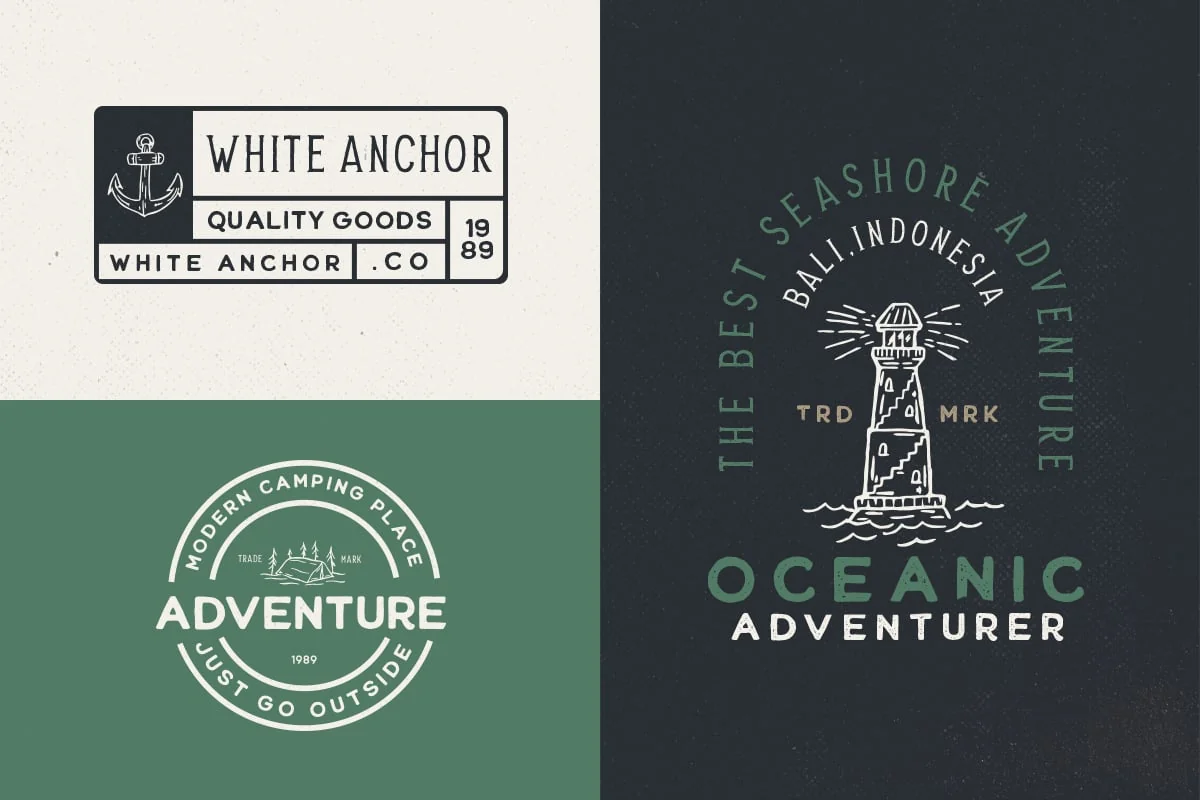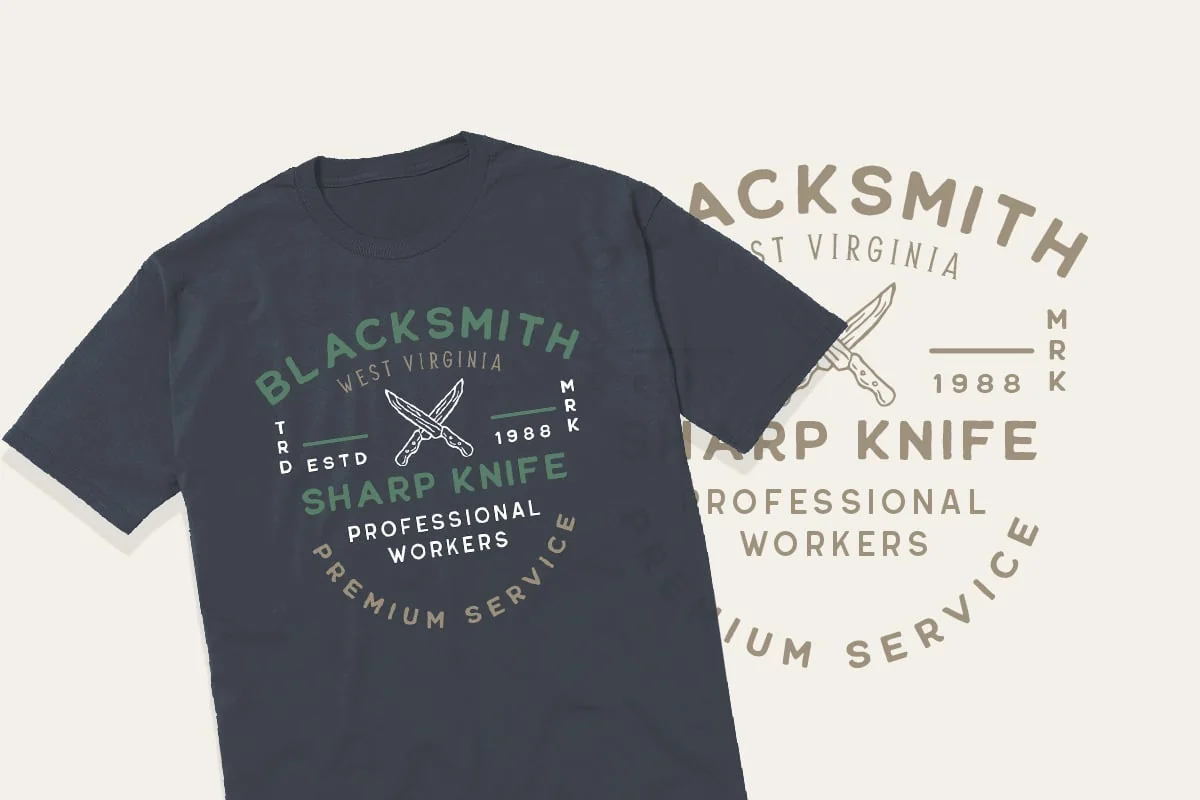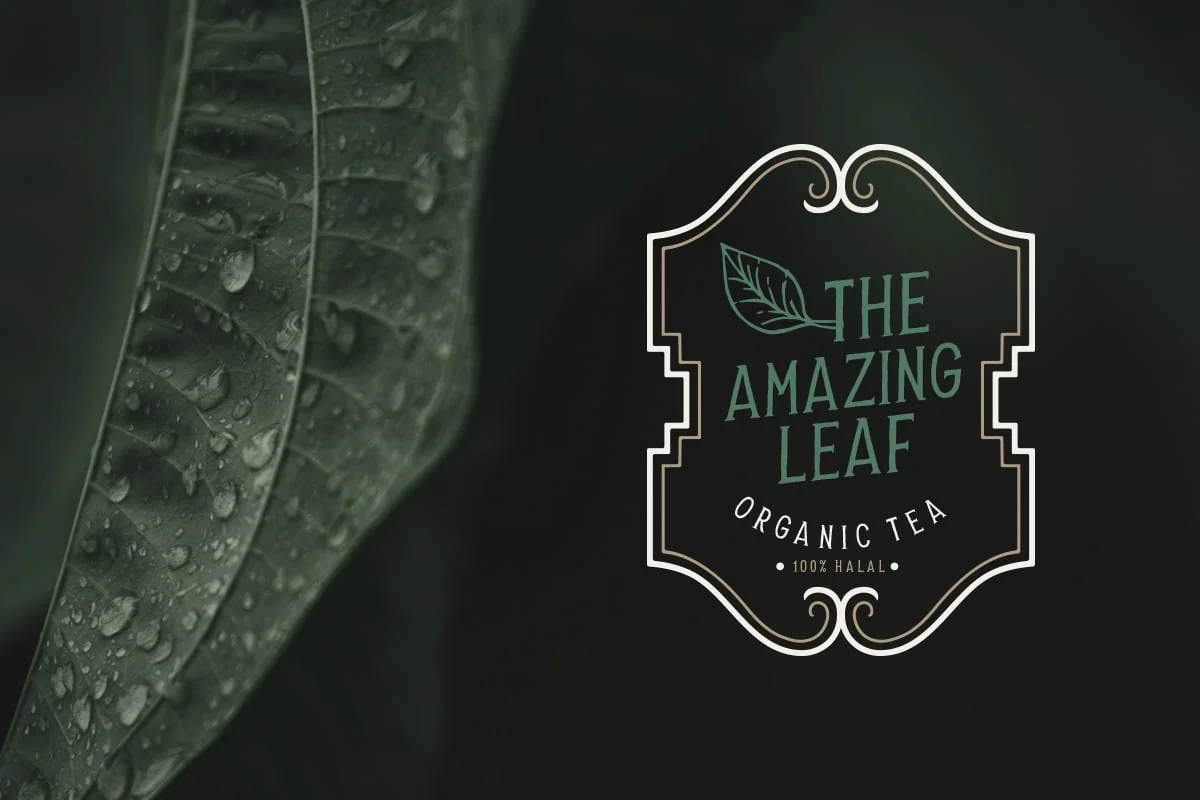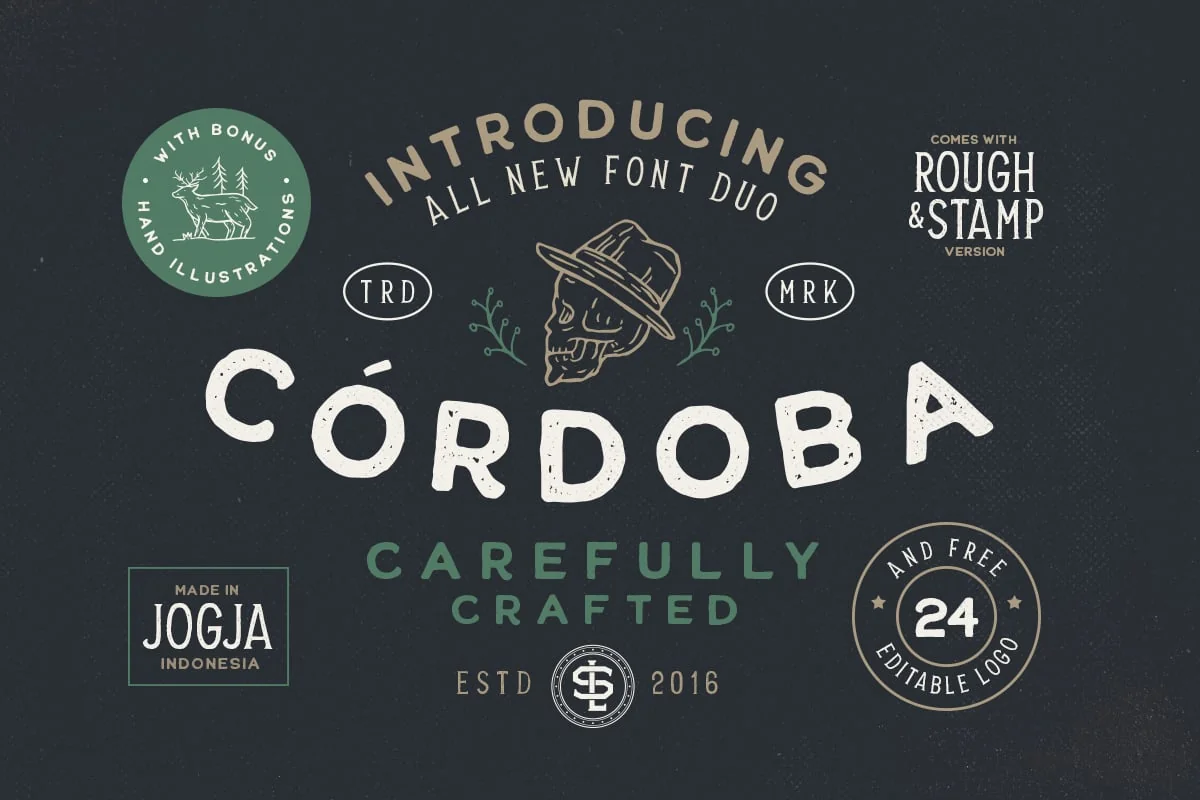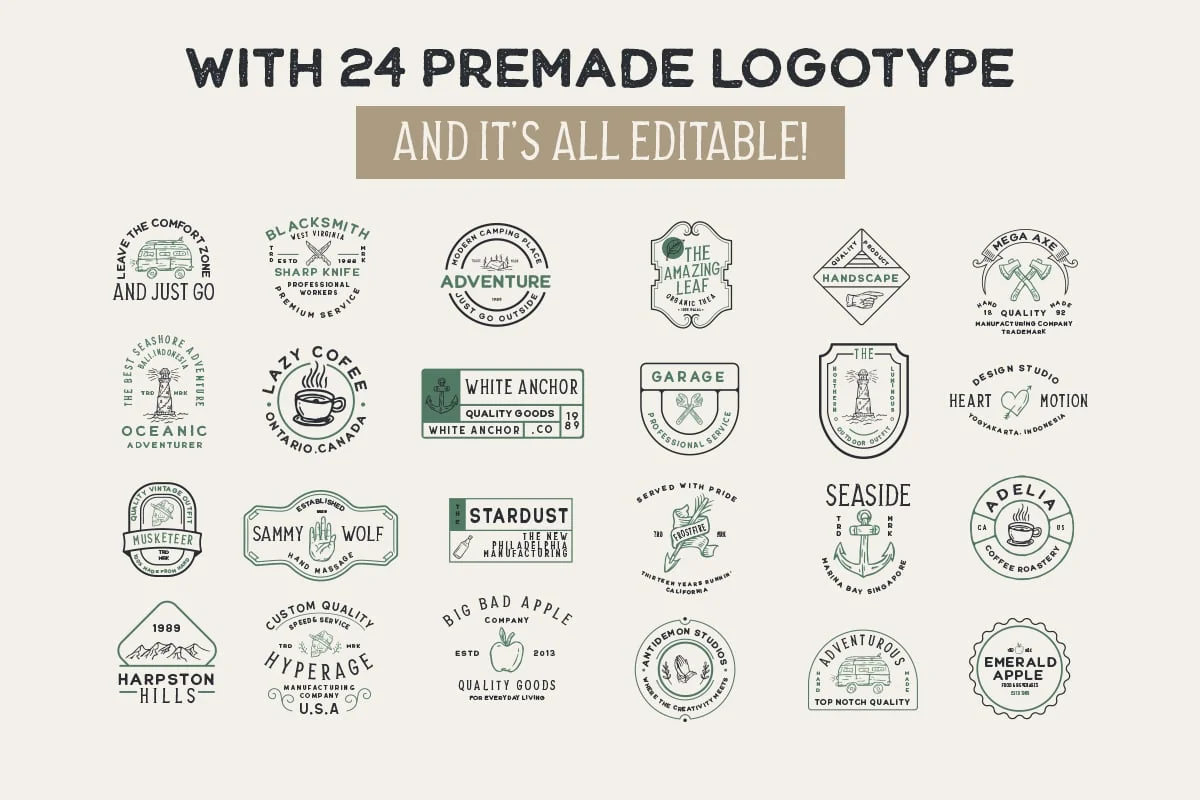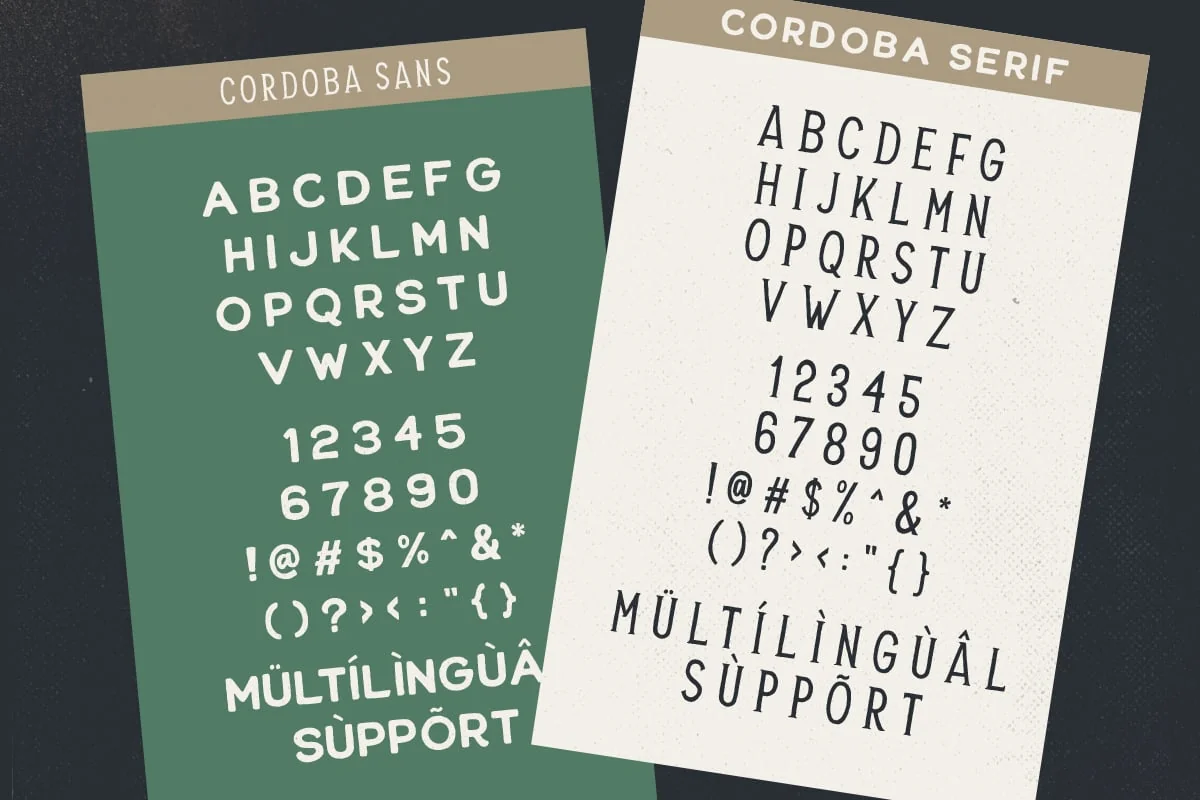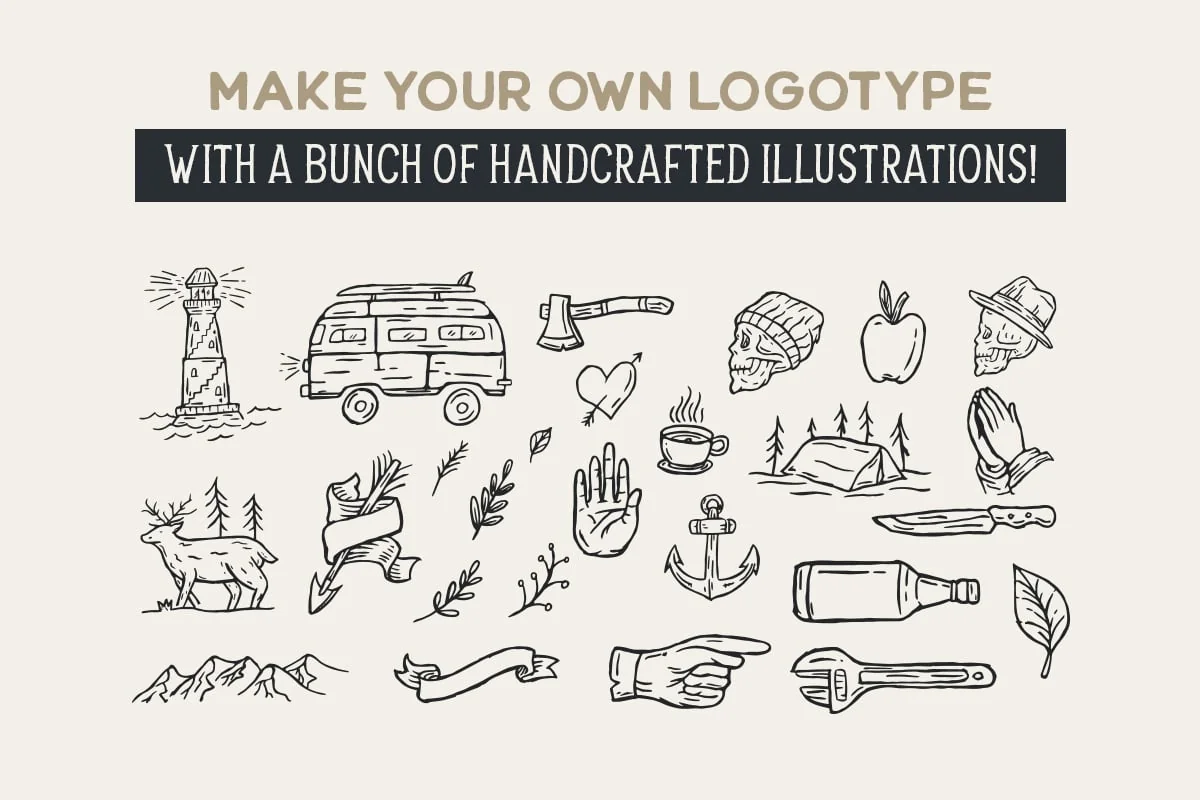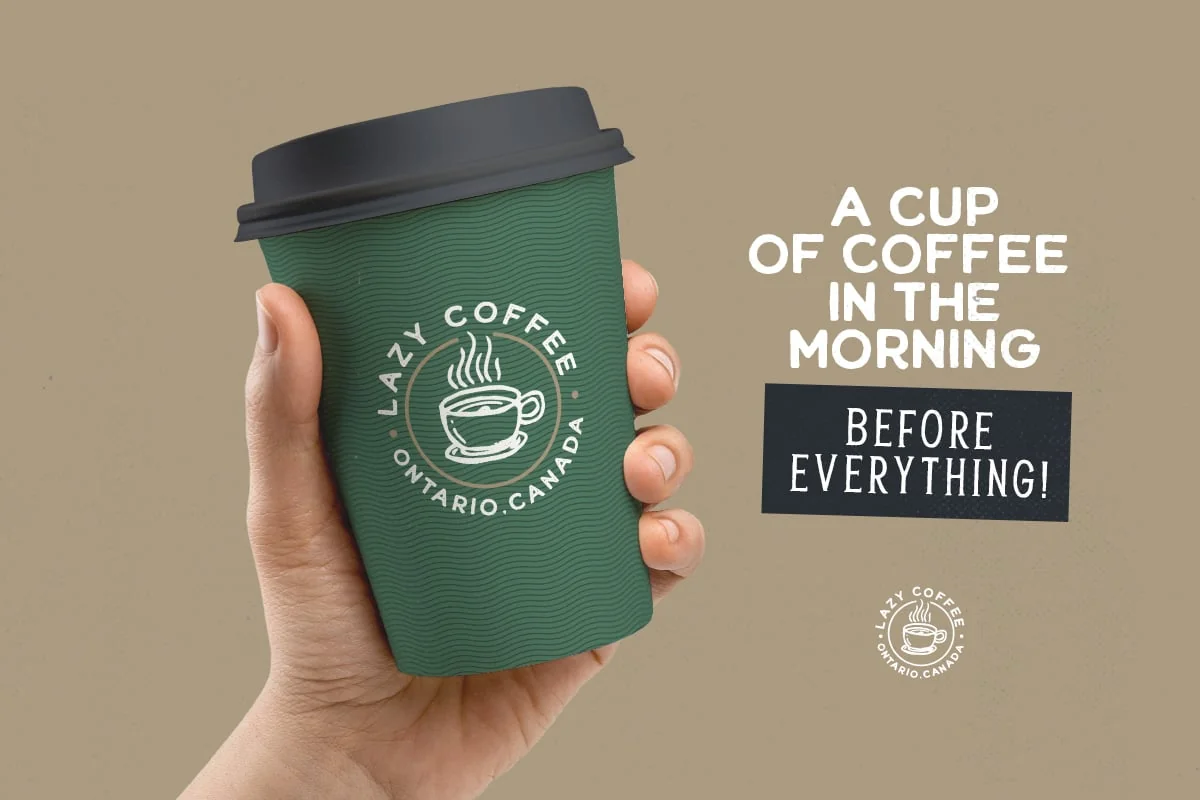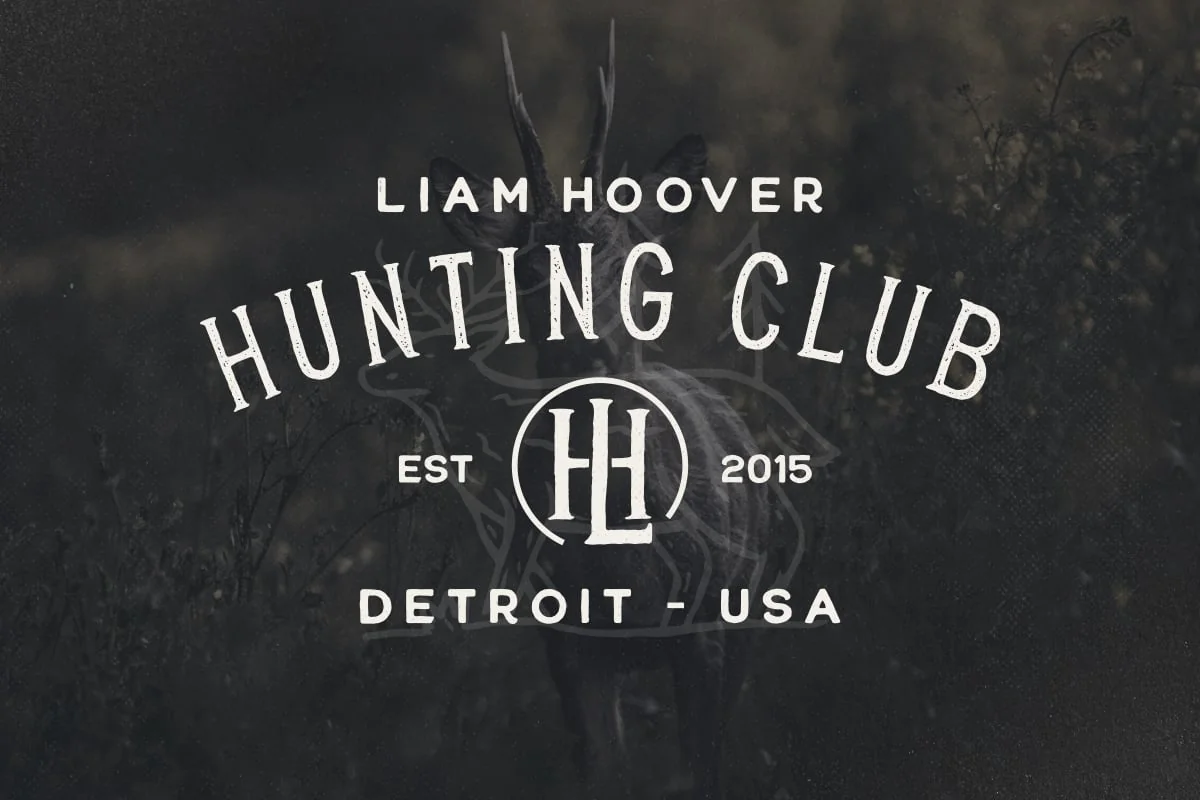
Cordoba – Font Duo (+EXTRA)
Cordoba is an organic font duo with natural vibes! Contain two fonts, Sans and Serif with Rough and Stamp Style. You can use this font for every project. Suitable for branding logo, hand lettering, or apparel design. This font duo also support multilingual, number and symbol.You also will get 24 PREMADE LOGOTYPE!